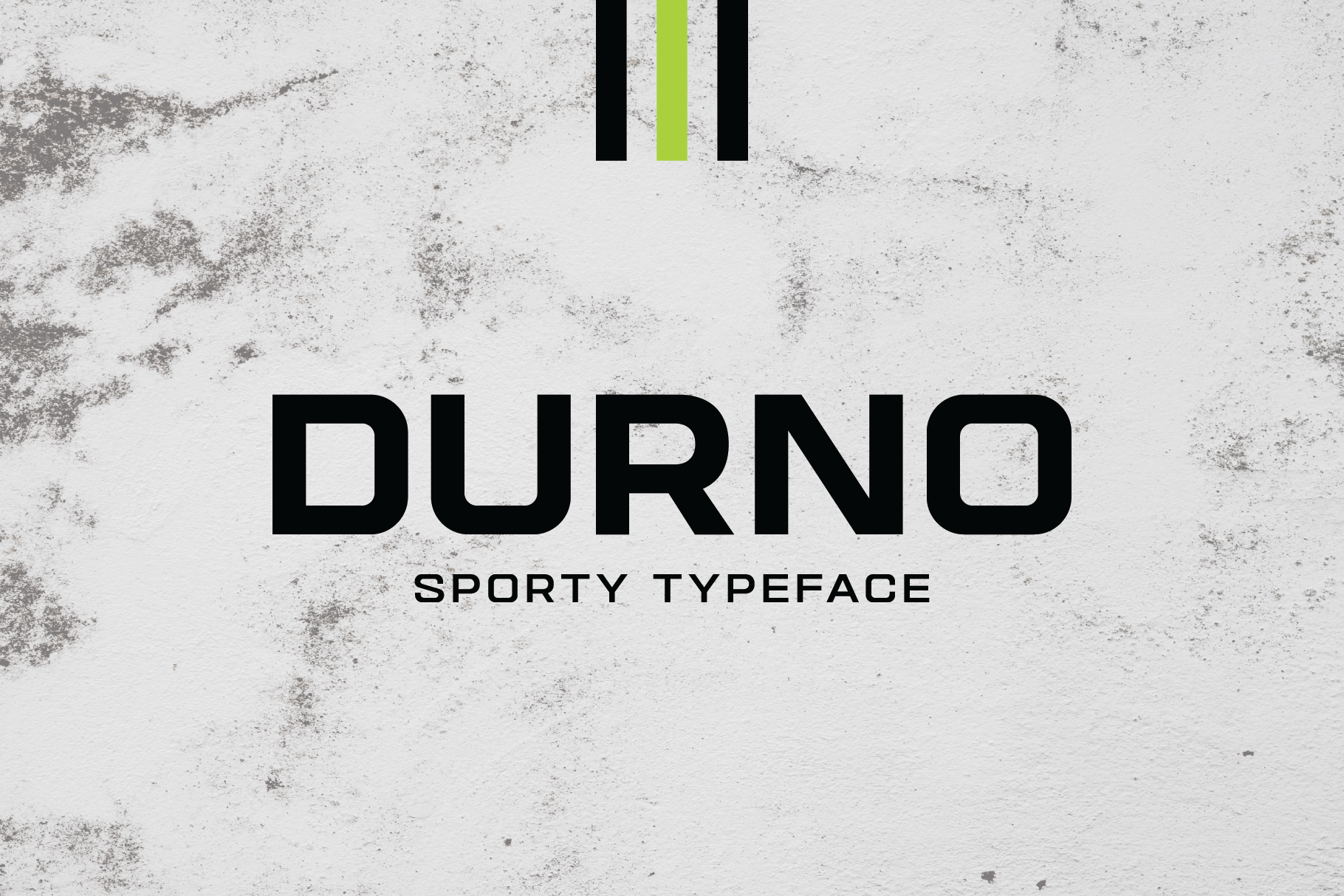
Durno Bold Extended Sport Font
Durno is a modern futuristic font, that features wide and extended glyphs, this extended sport font is suitable for your projects like logo designs, social media posts, banners, posters, headers, etc.